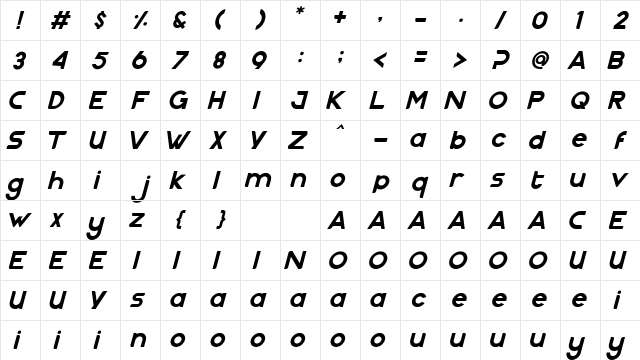
Nazegul Italic
| Foundry | Guna Studio |
| Designer | Fandi Kurniawan |
Design Context for Nazegul Typeface
Nazegul is a composed and adaptable typeface that performs quietly and consistently across a wide range of design contexts. The dynamic lean of this cut emphasises speed and emphasis in any layout.
Pro Tip: Use Nazegul for emphasis, pull quotes, and subheadings where its slanted energy can add rhythm to the layout.